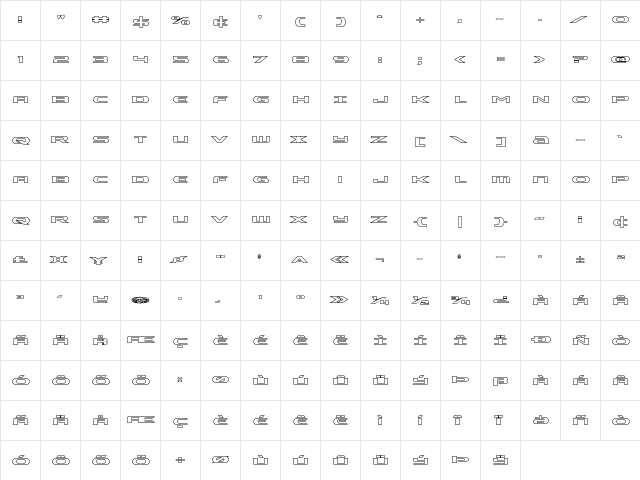
Alpha Men Outline Outline
Design Context for Alpha Men Outline Typeface
Alpha Men Outline is built around its visual character rather than neutral utility — its distinctive forms are designed to make an impression at display sizes.
Font Pairing: Pair with a clean neutral sans-serif for body copy to let Alpha Men Outline's character lead without overwhelming the composition.
Pro Tip: Treat Alpha Men Outline as the centrepiece of your typographic hierarchy. One strong heading set in a decorative face can carry an entire layout.